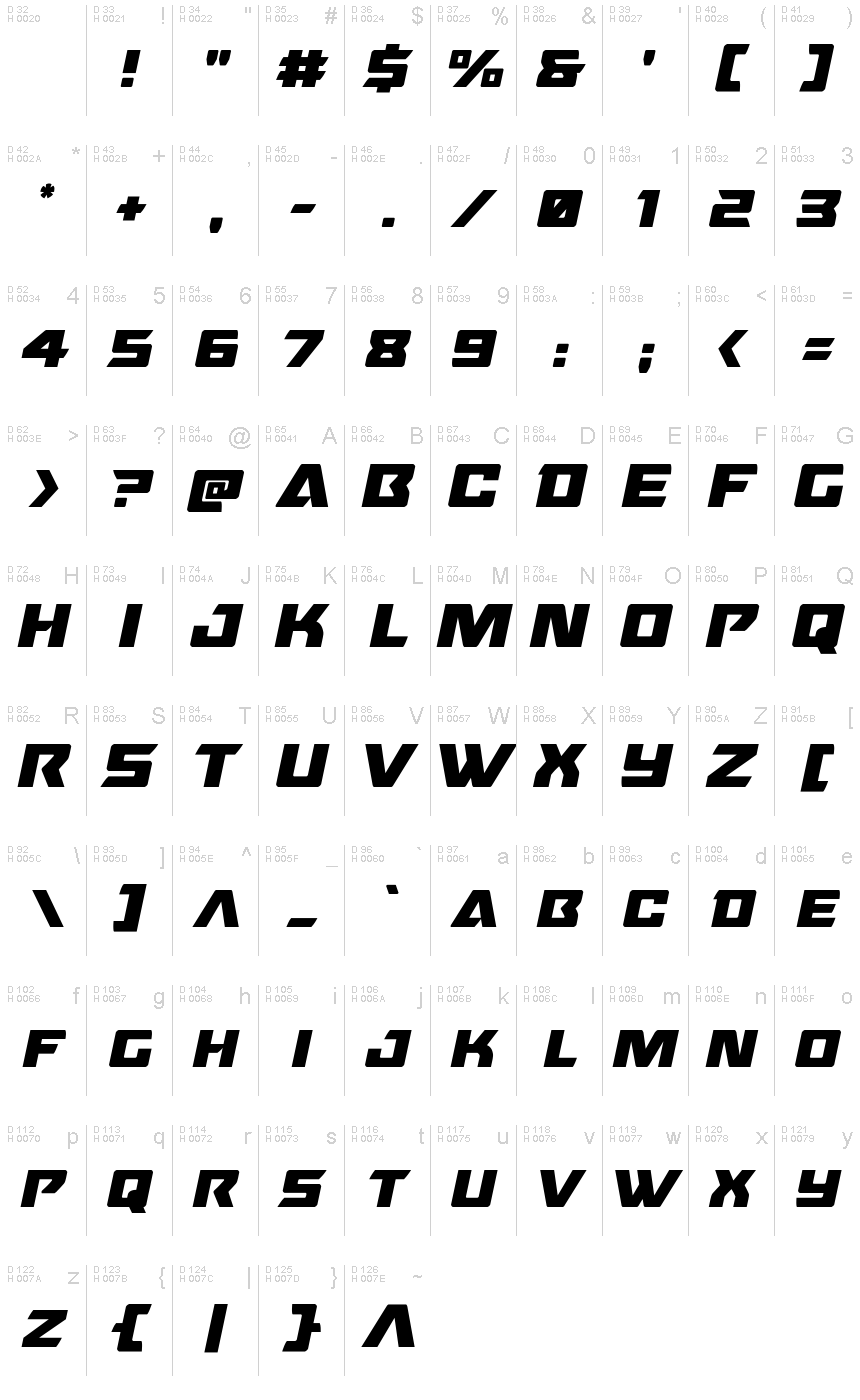
Oceanic Drift Semi-Italic
Oceanic Drift Semi-Italic, a captivating display font from Iconian Fonts, commands attention with its futuristic flair. Featuring bold, expanded letters that evoke a sense of motion and dynamism, this typeface exudes a sleek, contemporary aesthetic. The semi-italic style adds a touch of elegance, while the overall design strikes a harmonious balance between modern sophistication and technological refinement.
Oceanic Drift Semi-Italic's versatility makes it an exceptional choice for a diverse range of design applications. From bold headlines and impactful logos to eye-catching digital interfaces and cutting-edge branding, this font's distinctive character seamlessly adapts to various creative contexts. Its bold, expanded form and futuristic essence lend themselves particularly well to projects that require a strong, forward-thinking visual identity.